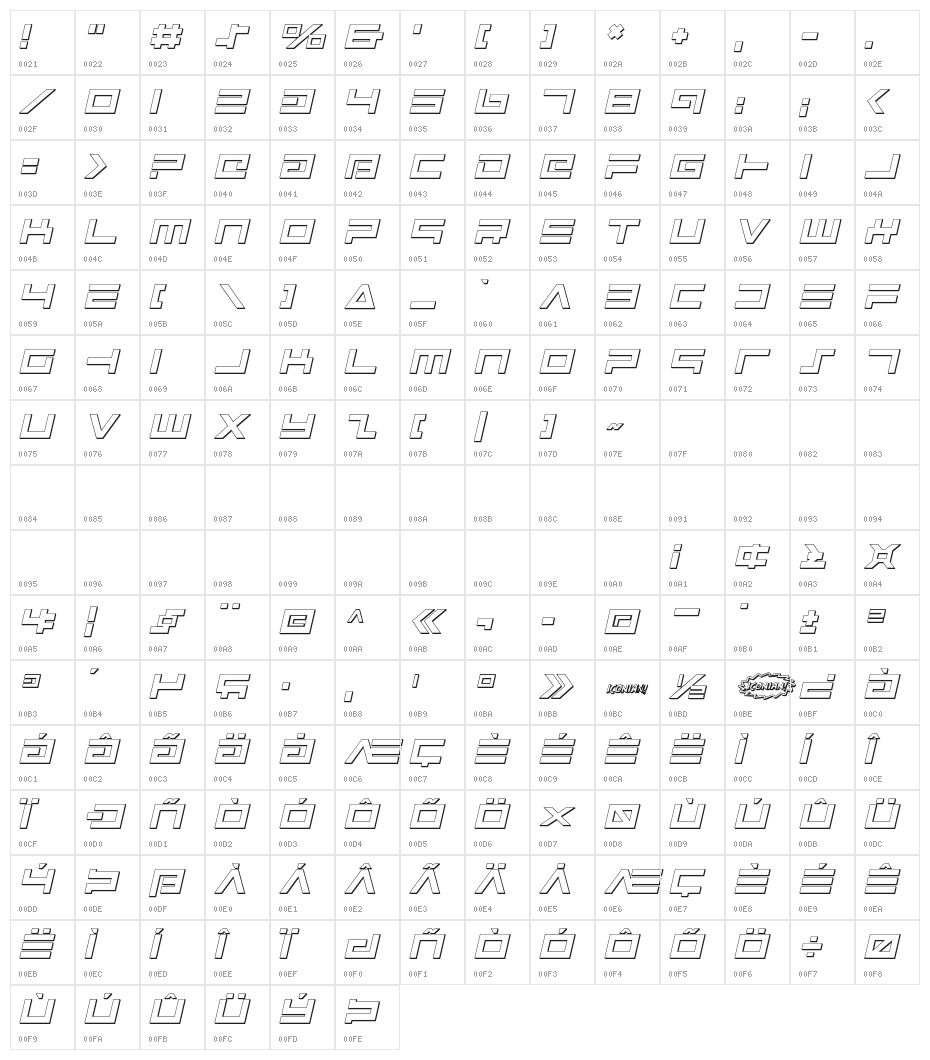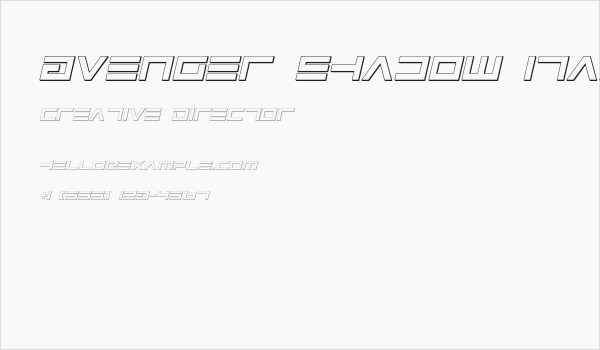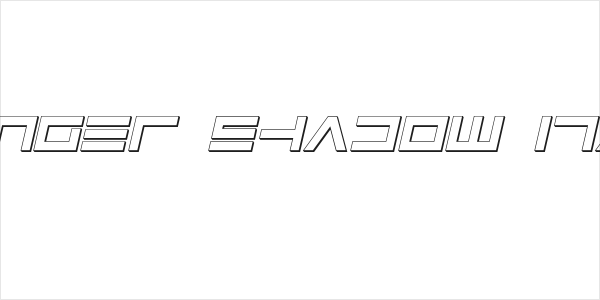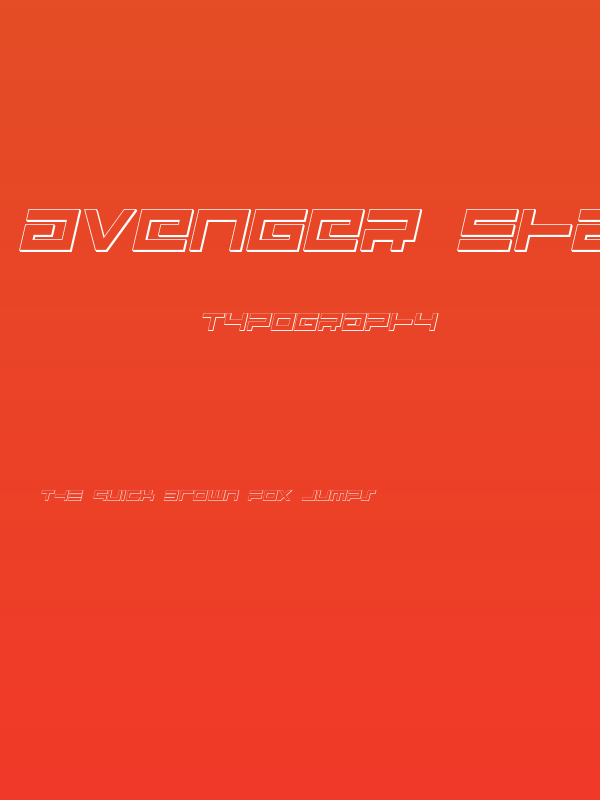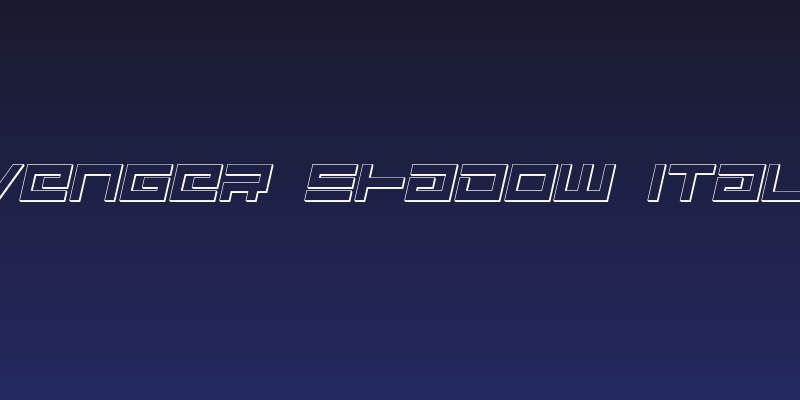
Avenger Shadow Italic Font
Avenger Shadow Italic Description
This font features a futuristic and angular design, characterized by its bold, geometric shapes and sharp edges. The letters are outlined, giving a shadow effect that enhances its three-dimensional appearance. The italic slant adds a dynamic and forward-moving feel, making it suitable for modern and tech-oriented designs. The uppercase and lowercase letters maintain a consistent style, with the numbers and special characters following the same aesthetic. Its unique structure makes it stand out, ideal for attention-grabbing headlines or logos.
| Proposed Projects | Ideal for sci-fi themed projects, tech company branding, video game titles, and modern posters. |